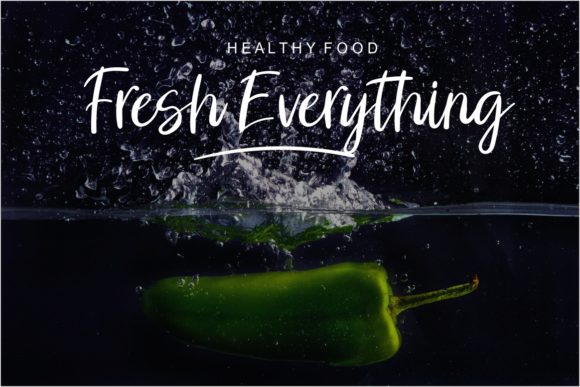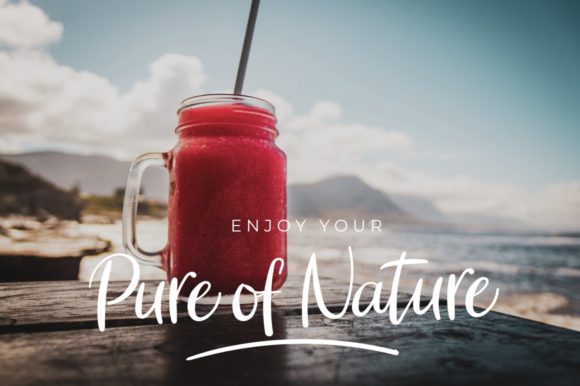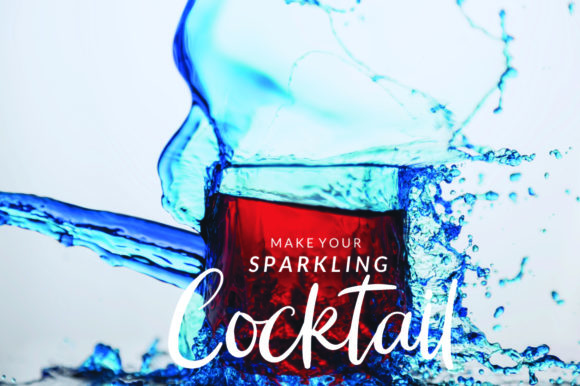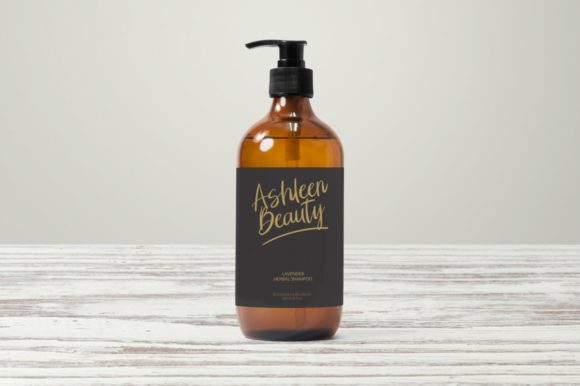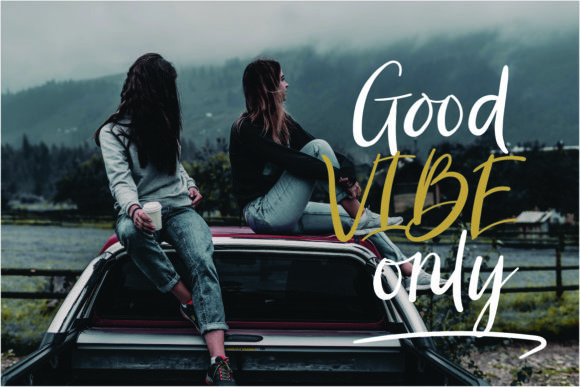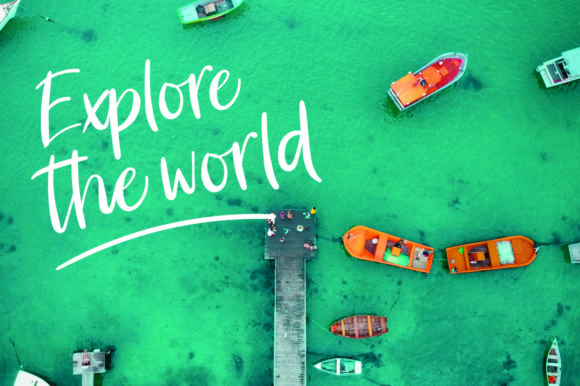
The Perfect Script Font for Every Design
As a designer, there’s nothing quite like the feeling of finding that perfect font to bring a project to life. It’s the moment when all the pieces come together, and you know you’ve created something truly special. For me, that moment came when I stumbled upon the elegant Brocke Jackson Font. This stunning script font has become my go-to choice for designs that need a touch of handwritten charm.
Brocke Jackson Font is more than just a pretty face – it’s a versatile tool that can elevate any design from wedding invitations to logos and business cards. With its varying baseline, smooth lines, gorgeous glyphs, and stunning alternates, this font is a designer’s dream come true. And with its PUA encoding, accessing all the glyphs and swashes is a breeze, making it a valuable asset for any design project.
- Unique Characteristics: The Brocke Jackson Font features a unique blend of modern and vintage elements, with intricate details and ornate flourishes that set it apart from other fonts.
Brocke Jackson Font Review
When I first laid eyes on the Brocke Jackson font, I was immediately drawn to its unique, elegant style. ✨ The font’s subtle curves and refined lines give it a sophisticated, high-end feel that’s perfect for luxury brands and upscale designs. ✨ The font’s versatility also shines through in its ability to be used in a variety of contexts, from invitations to product labels.
However, there are a few limitations to consider. ⚠️ The font’s limited character set may be a concern for designers who need to work with non-standard characters or languages. ⚠️ Additionally, the font’s complexity may make it challenging for some users to install and configure.
In terms of overall impression, I’d say that the Brocke Jackson font is a solid choice for designers who want to add a touch of elegance and sophistication to their projects. While it may not be the most versatile font on the market, its unique style and high-end feel make it a great option for luxury brands and upscale designs.
- Unique, elegant style
- High-end feel
- Versatile
- Limited character set
The Brocke Jackson Font is a modern, elegant font that is suitable for various design applications, including:
- Posters and flyers
Some tips for getting the most out of the Brocke Jackson Font include:
- Pairing it with a clean and simple design
- Using it in combination with other modern fonts
- Experimenting with different font sizes and styles
Alternatives to Brocke Jackson Font for Designers
Montserrat is a sans-serif font designed by Julieta Ulanovsky. It’s ideal for modern and urban designs, such as posters, magazines, and websites. Montserrat is more geometric and sleek compared to Brocke Jackson Font, which has a more vintage feel.
Lato is a sans-serif font designed by Łukasz Dziedzic. It’s a versatile font suitable for various designs, including corporate websites, magazines, and books. Lato is more minimalist and elegant than Brocke Jackson Font, making it a great choice for designs that require a clean and sophisticated look.